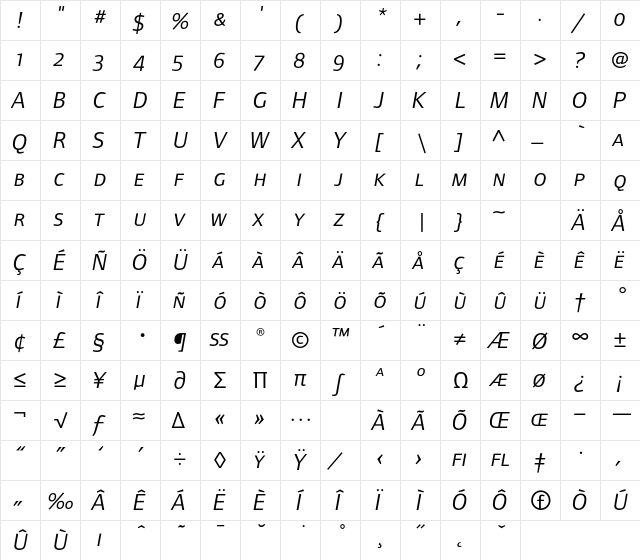
FoundryFormSans ItalicSC
Design Context for FoundryFormSans Typeface
FoundryFormSans is a composed and adaptable typeface that performs quietly and consistently across a wide range of design contexts. Its italic angle brings a sense of urgency and motion to the letterforms.
Pro Tip: Use FoundryFormSans for emphasis, pull quotes, and subheadings where its slanted energy can add rhythm to the layout.